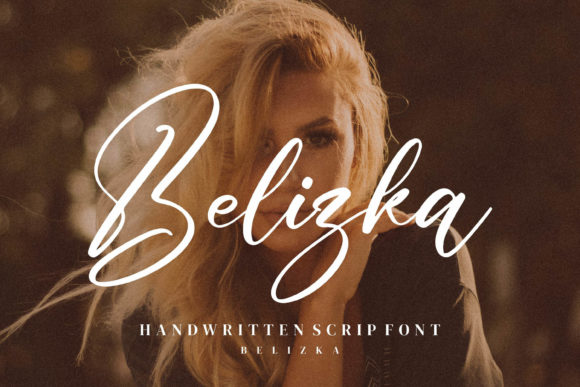
Belizka: Elevate Your Brand with This Elegant Script Font
As a marketer, content creator, or social media designer, your choice of font can make or break the visual appeal and effectiveness of your designs. Belizka, a premium script font, is a perfect example of how a well-crafted typeface can transform your digital presence. This elegant and delicate script exudes class and sophistication, making it an ideal choice for creating scroll-stopping visuals, campaign graphics, and more.
Captivating Visuals for Social Media
When it comes to social media, first impressions are everything. Belizka can help you create Instagram posts, Pinterest pins, and YouTube thumbnails that stand out. Its graceful, flowing lines add a touch of elegance, making your content more visually appealing and memorable. For instance, use Belizka in a sale announcement graphic to draw attention and convey a sense of luxury and exclusivity.
Creating Stronger Visual Hierarchy
One of the key benefits of using Belizka is its ability to create a strong visual hierarchy. When used for headlines, titles, and callouts, this script font naturally draws the eye, making your most important messages stand out. This is particularly useful in fast-scrolling social feeds where you need to grab the viewer's attention quickly. Pair Belizka with a clean sans serif font for body text to ensure readability and balance.
Enhancing Brand Recognition and Consistency
Consistency is crucial for building brand recognition. Belizka can be a powerful tool in maintaining a cohesive and recognizable brand identity across various platforms. Whether you're designing email headers, website banners, or landing pages, the distinctive style of Belizka helps reinforce your brand's personality and values. For example, use Belizka in your webinar banners to create a consistent and professional look that resonates with your audience.
Readability and Practical Use
While Belizka is highly decorative, it's also designed with readability in mind. For mobile screens and small previews, it's essential to use Belizka judiciously. It works best for short text, headlines, and decorative accents. For longer copy, consider pairing it with a more legible font like a clean sans serif. This ensures that your message is clear and easy to read, even on smaller devices.
Influencing Audience Perception
The right font can significantly influence how your audience perceives your brand. Belizka has a refined and sophisticated feel, which can enhance the perceived quality of your products and services. This makes it an excellent choice for product launches, seasonal promotions, and personal branding. Imagine using Belizka for an inspirational quote graphic or a promotional banner for a new product line. The result is a design that not only looks beautiful but also leaves a lasting impression.
Practical Font Pairing Tips
To get the most out of Belizka, consider how it pairs with other fonts. Combining Belizka with a modern sans serif font can create a balanced and contemporary look. Alternatively, pairing it with a classic serif font can give your designs a more editorial and traditional feel. Experiment with different combinations to find the one that best aligns with your brand's aesthetic and messaging.
Real-World Examples and Applications
Let's dive into some practical examples of how Belizka can be used in real-world marketing scenarios:
- Sale Announcement: Use Belizka for the main headline to create a luxurious and exclusive feel. Pair it with a clean sans serif for the details to ensure clarity and readability.
- Product Teaser: Incorporate Belizka in a teaser graphic to build anticipation and excitement. The elegant script will make your product look high-end and desirable.
- Inspirational Quote Graphic: Create a visually stunning quote graphic with Belizka. The flowing script will add a touch of elegance and make the quote more shareable.
- Webinar Banner: Design a professional and inviting webinar banner using Belizka for the title. This will help set the tone and attract more attendees.
- Content Series: Use Belizka for the series title to create a consistent and recognizable theme. This will help build a loyal following and increase engagement.
Final Considerations
In conclusion, Belizka is a versatile and elegant script font that can elevate your marketing and design efforts. Whether you're creating social media graphics, campaign visuals, or branded content, Belizka offers a unique and sophisticated touch that can set your brand apart. Start experimenting with this premium font and see how it can transform your visual communication and audience engagement.